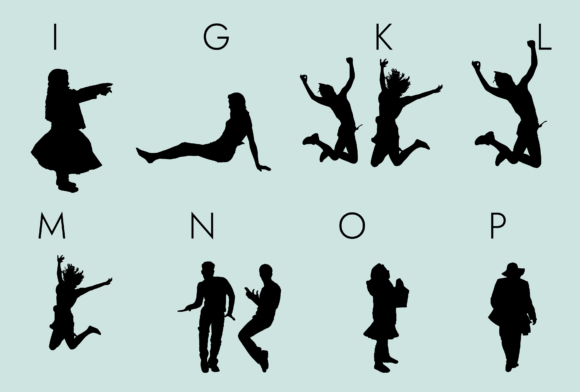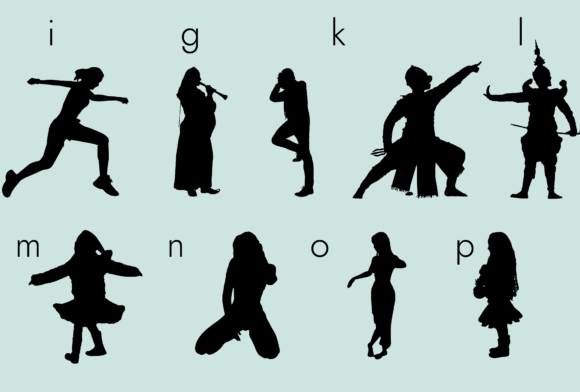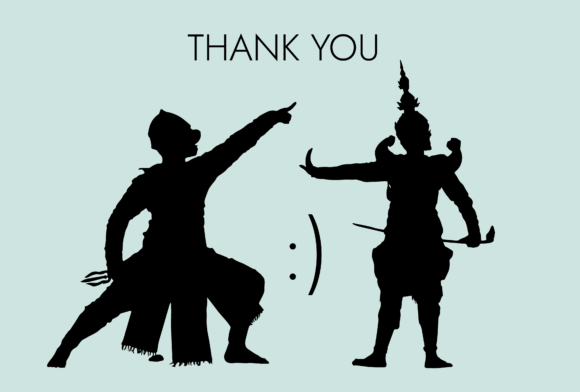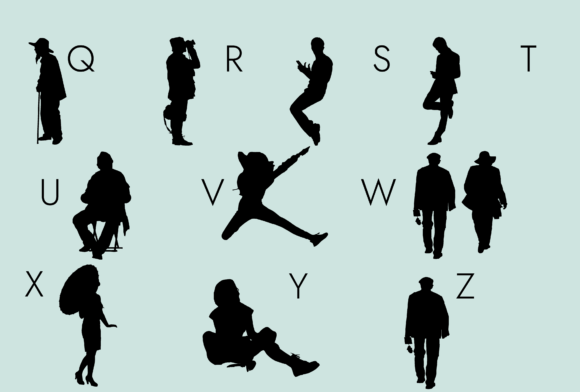
People Silhouettes 2.0 Font
“People Silhouettes 2.0” is an exceptional dingbats font that offers a wide range of unique and well-crafted people silhouettes. Designed to simplify the process of creating human figures, this font provides a convenient and creative solution for various design projects.
With “People Silhouettes 2.0,” you have the ability to generate captivating people silhouettes simply by typing letters or numbers. Each character corresponds to a distinct and artistic representation of a person in silhouette form. Whether you need to depict individuals in different poses, activities, or occupations, this font has you covered.
The beauty of “People Silhouettes 2.0” lies in its versatility and ease of use. By incorporating these silhouettes into your designs, you can add depth, visual interest, and a human touch to various projects. Whether you’re working on posters, presentations, advertisements, or digital graphics, these silhouettes will undoubtedly elevate your designs and captivate your audience.
The wide range of people silhouettes available in this font allows you to convey various themes and concepts. From individuals engaged in sports and fitness activities to professionals in different occupations, you can find silhouettes that suit your specific design needs. Additionally, the font includes silhouettes of people in different age groups, genders, and poses, providing even more flexibility for your projects.
The simplicity and elegance of silhouette designs make them highly adaptable to different styles and aesthetics. You can easily incorporate these silhouettes into both minimalist and elaborate designs, adjusting their size, color, and composition to match your desired look and feel. Whether you want to create a clean and modern design or a bold and expressive composition, “People Silhouettes 2.0” will meet your expectations.
This font is a valuable asset for designers, artists, and creative individuals who want to streamline their workflow and enhance their design projects. Instead of spending time searching for or creating individual people silhouettes, you can rely on the convenience and quality of “People Silhouettes 2.0.” This allows you to focus on other aspects of your design process and ensures consistent and visually appealing results.
In conclusion, “People Silhouettes 2.0” is a remarkable dingbats font that empowers you to generate unique and well-done people silhouettes effortlessly. Whether you’re designing posters, presentations, or digital graphics, this font will add a touch of creativity and professionalism to your projects. Enjoy the convenience, versatility, and artistic possibilities that “People Silhouettes 2.0” brings to your creative endeavors.